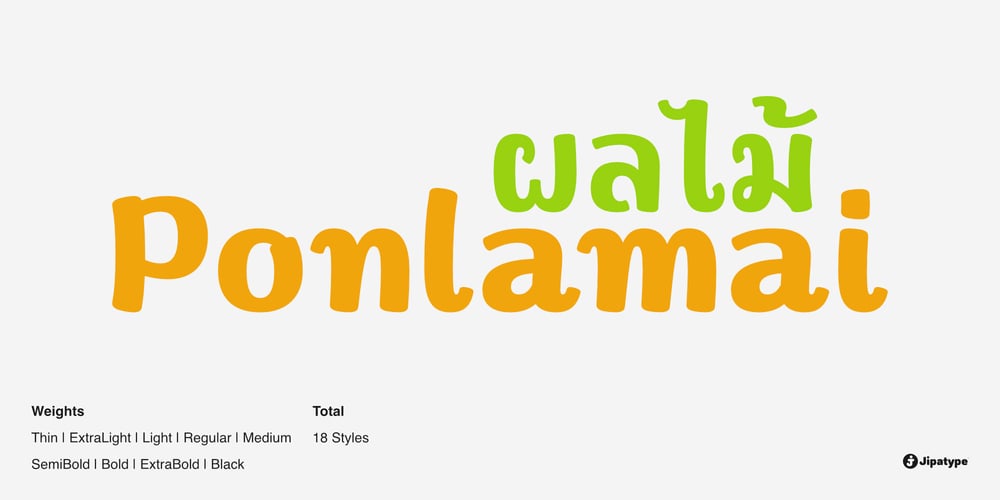
Ponlamai Font Family was designed by Anupap Jaichumnan and published by Jipatype. Ponlamai contains 18 styles and family package options. Ponlamai font style that will transport you to the fresh fruit market of memories! The vendors at the fresh markets are all silent artists who use marker pens to add vibrant colors to their price signs, with fluid and unique handwriting styles. Ponlamai was created to emulate this captivating charm, offering 18 styles ranging from slender and swaying to plump and joyful. Supporting both Thai and Latin-1 scripts, it infuses positivity and bright smiles into every medium you create with it. Ponlamai is perfect for casual, relaxed communication like travel/food videos on YouTube, variety shows, stickers, or for decorating food packaging, drinks, snacks, and fruits. Its distinctive hand-drawn aesthetic evokes memories of lively fresh markets.